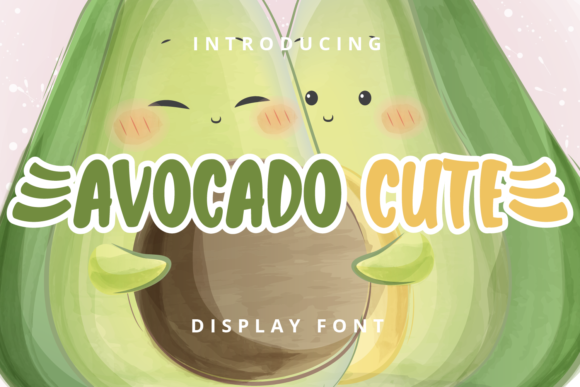
The Avocado Cute Font: A Playful Companion for Your Creative Projects
I’ll never forget the time I was working on a children’s activity book, struggling to find the perfect font that embodied playfulness and friendliness. My client wanted something that would appeal to kids and make their learning experience enjoyable. That’s when I stumbled upon the Avocado Cute font, and it instantly became my go-to choice. In this article, I’ll share my experience with this lovely font, its features, and how to make the most of it in your creative projects.
An Honest Review of Avocado Cute
Here’s what I love about Avocado Cute:
- ✨ Playful and friendly vibe that’s perfect for children’s content
- ✅ Easy to read, even at smaller font sizes
- 💕 Adorable glyphs and stylistic alternates that add a personal touch
- 🎨 Highly versatile and can be used for various creative projects, from school materials to craft designs
While Avocado Cute is an excellent font, there are a few minor quirks to be aware of:
- 🤔 Limited character set, which might not be suitable for complex or multilingual projects
- ⚠️ Some users might find the font a bit too casual for formal or professional designs
The Designer Inspiration Behind Avocado Cute
Avocado Cute was created with the intention of bringing a smile to people’s faces. The designer, inspired by the playful and carefree nature of childhood, aimed to craft a font that would capture the essence of fun and creativity. The result is a font that embodies warmth, approachability, and a sense of friendliness.
| What type of projects is Avocado Cute best suited for? | Avocado Cute is perfect for children’s activity books, school projects, craft designs, and any creative project that requires a playful and friendly touch. |